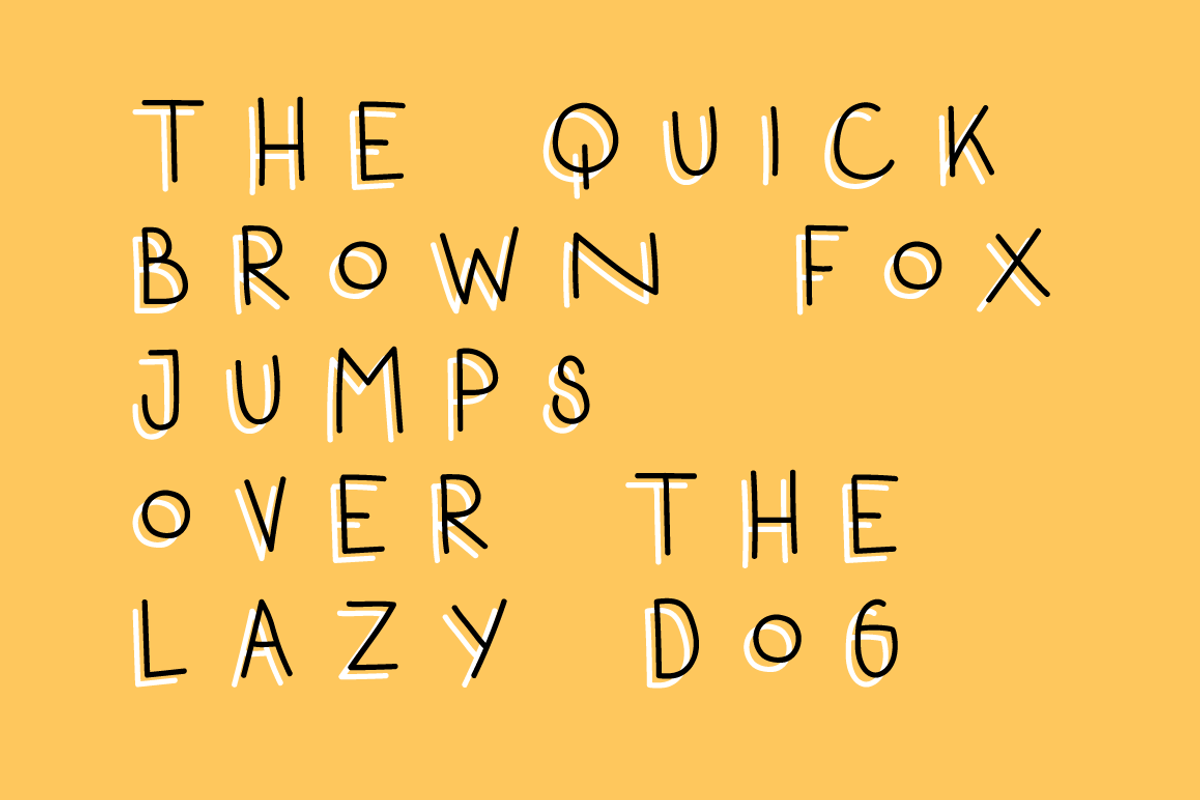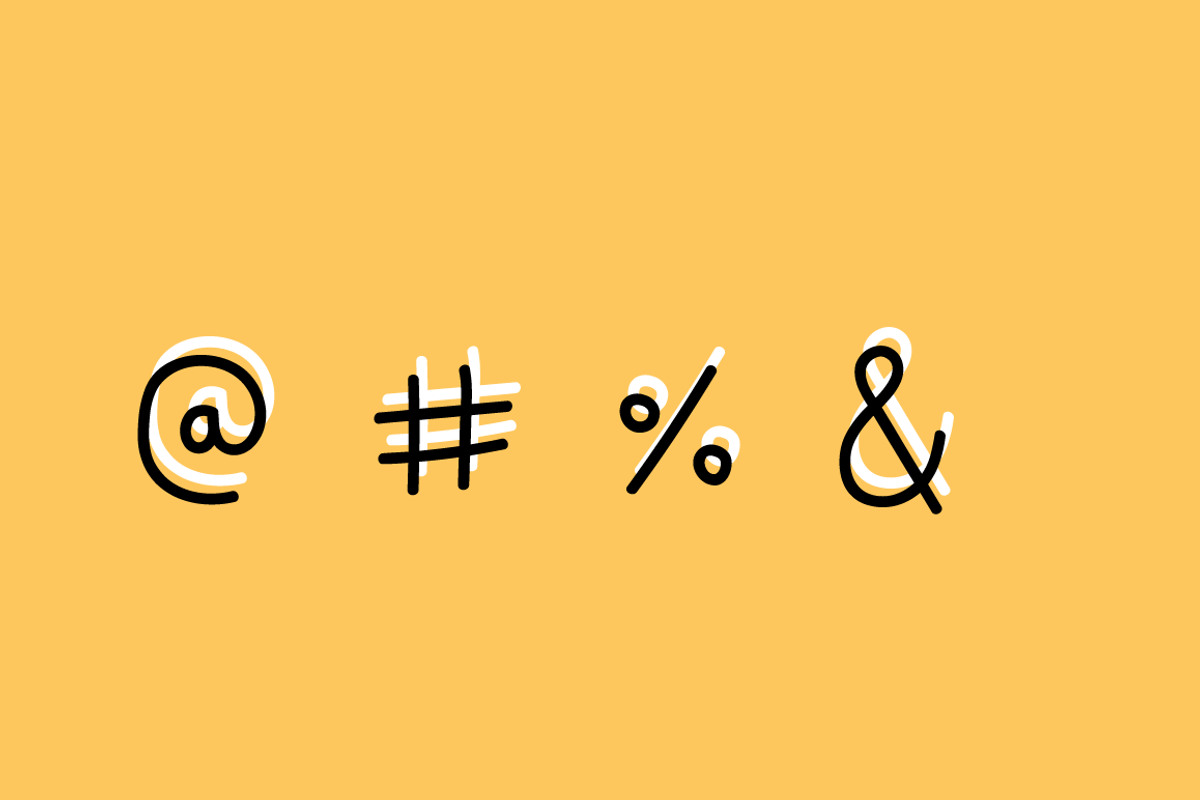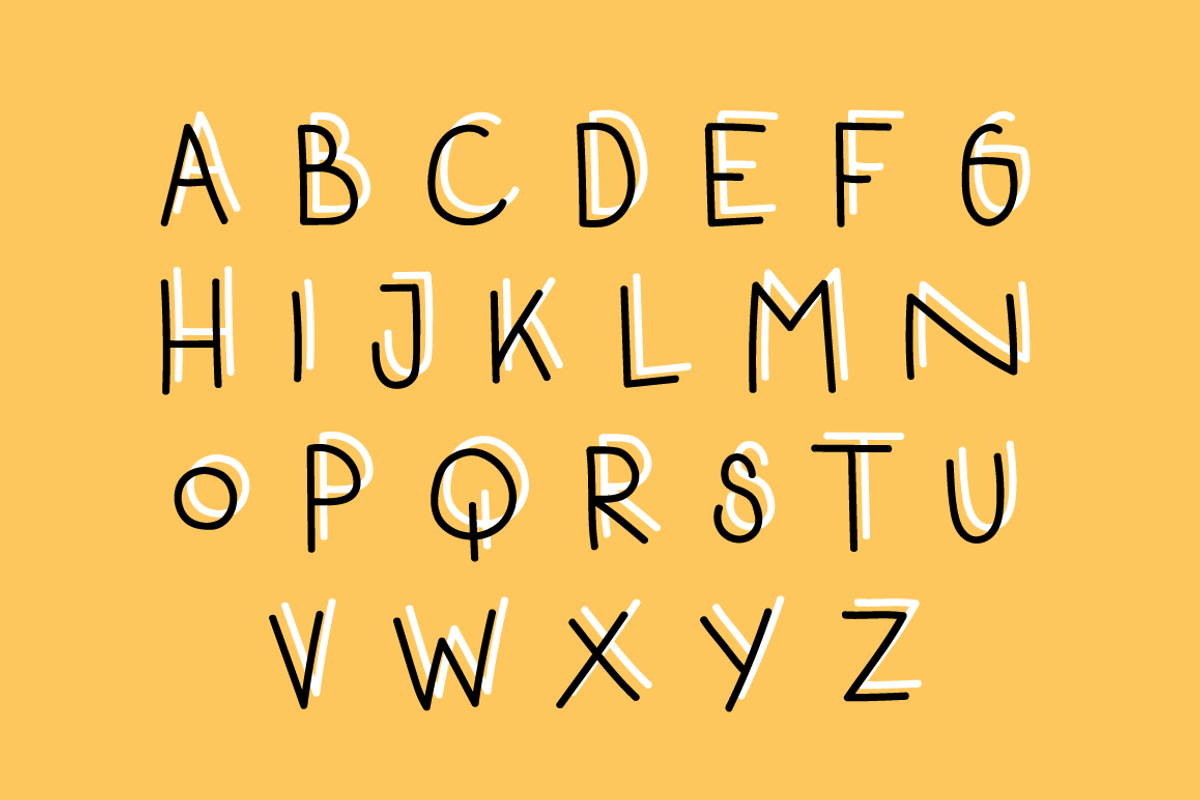
Ugo — Slim Handmade Font
Ugo — Slim Handmade Font by Noe Araujo is a font selected for branding, posters, packaging, typography.
Why Ugo — Slim Handmade Font is worth a look
Ugo — Slim Handmade Font by Noe Araujo fits naturally into Branding, posters, packaging, typography.